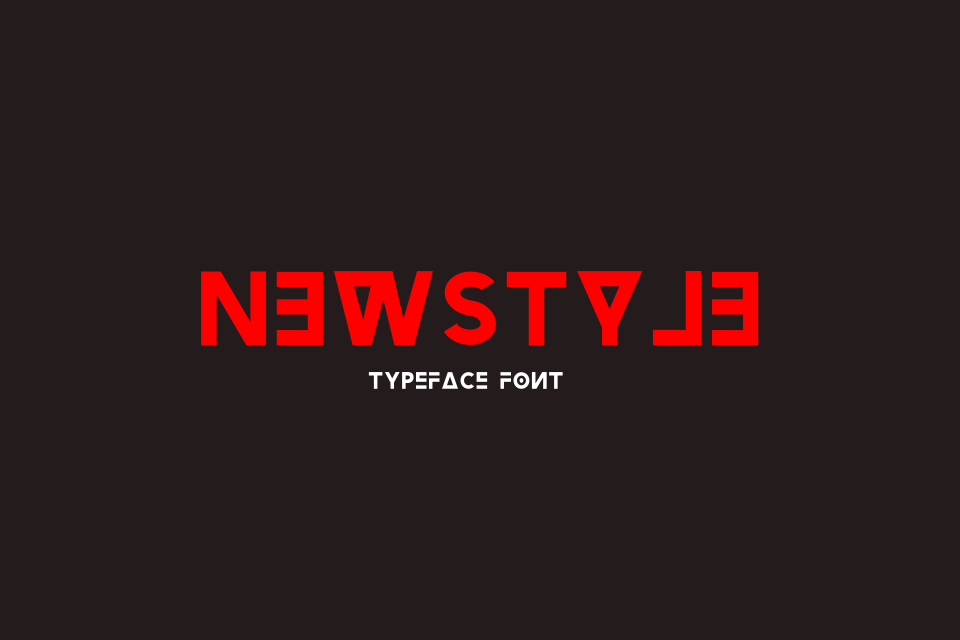
Newstyle Typeface FontThis is the best sans serif font design. You can use this for commercial work, like banner, t-shirt, and other design what you need.